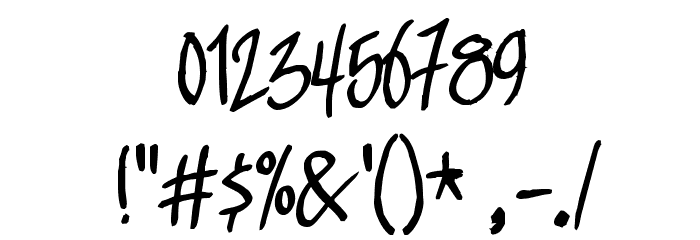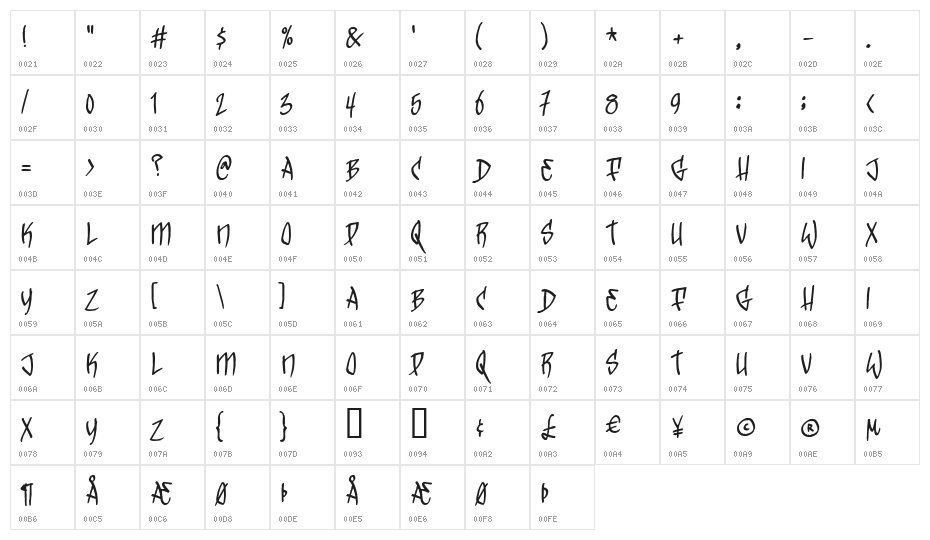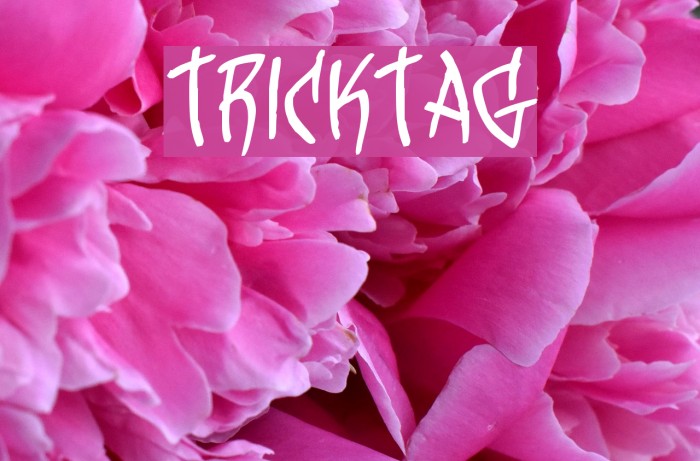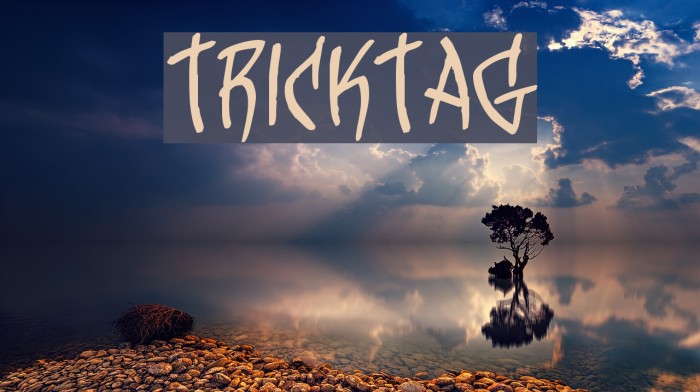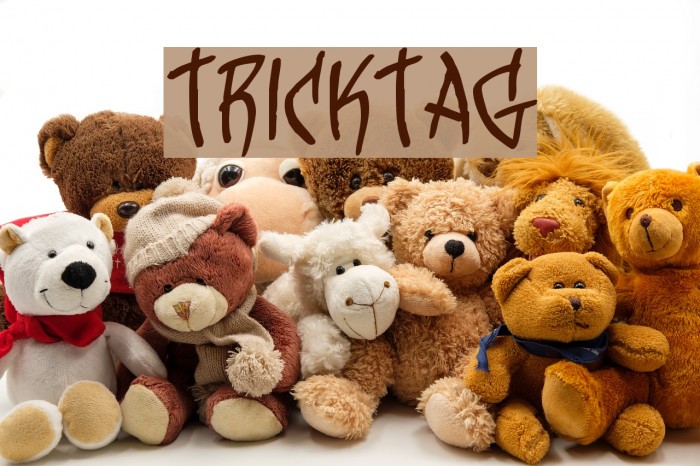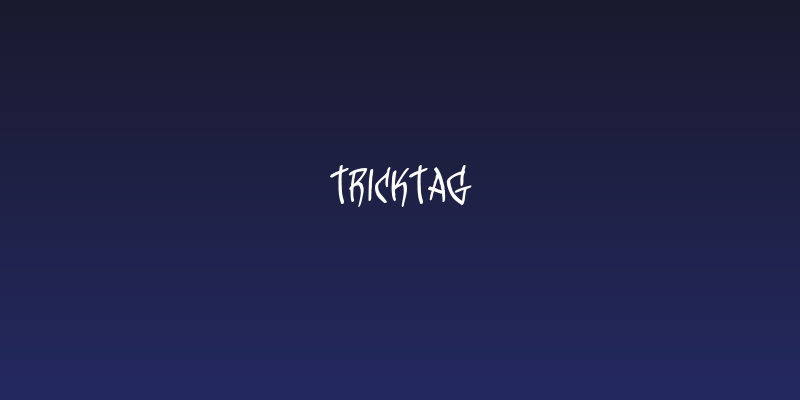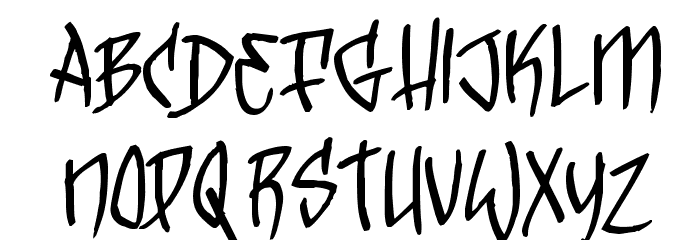
TrickTag Font
TrickTag Description
This font features a dynamic and energetic style, reminiscent of graffiti or street art. The characters are bold and slightly slanted, giving a sense of movement and flair. The strokes are uneven, with varying thickness that adds to the hand-drawn, artistic feel. The uppercase and lowercase letters maintain a consistent style, with sharp angles and fluid curves. Numbers and special characters follow the same aesthetic, ensuring a cohesive look across all elements. This font exudes a rebellious and youthful vibe, perfect for projects that aim to capture attention and convey a sense of creativity and individuality.
| Proposed Projects | Ideal for street art designs, music album covers, urban-themed posters, and edgy branding. |